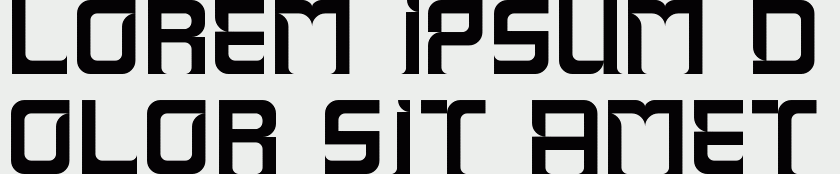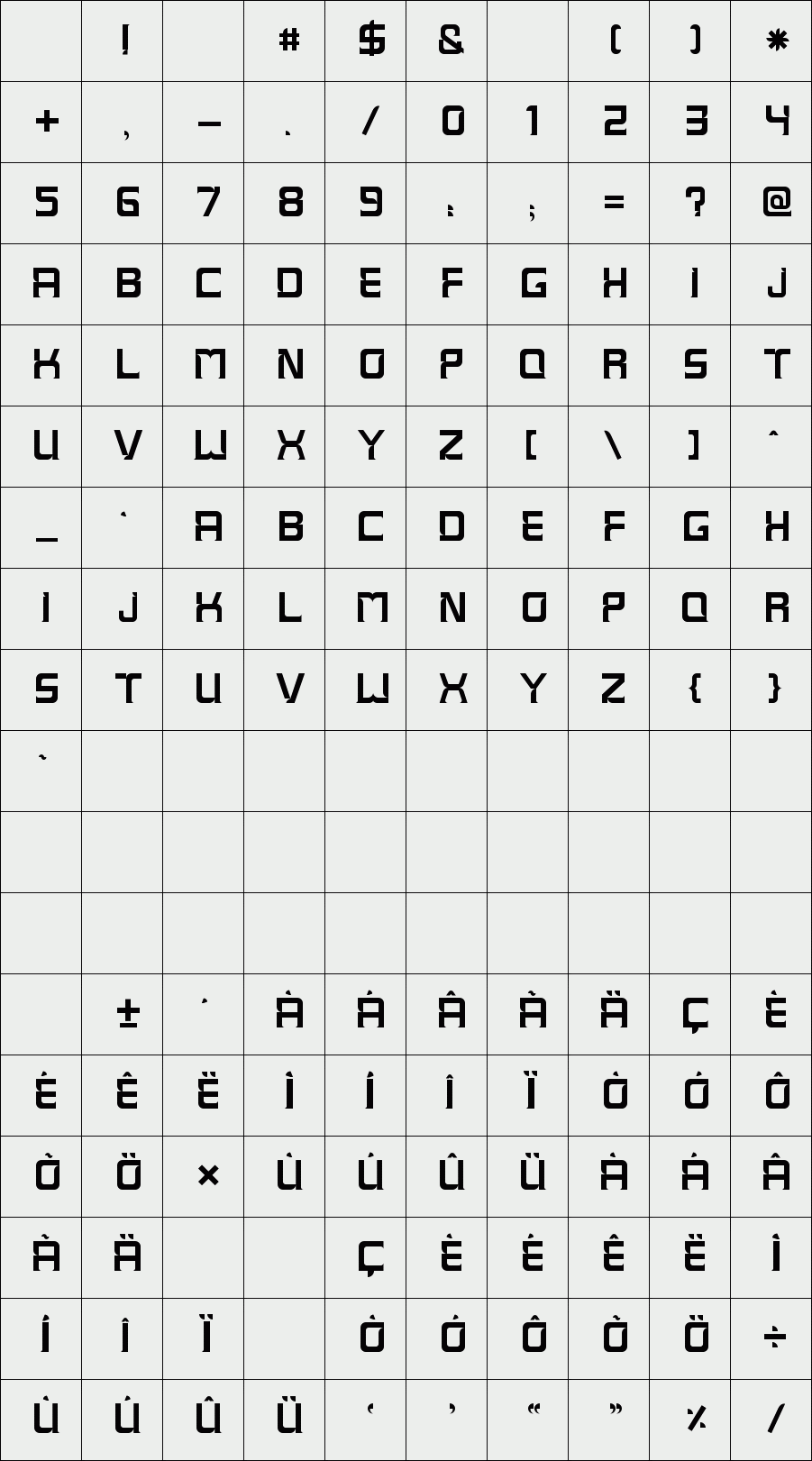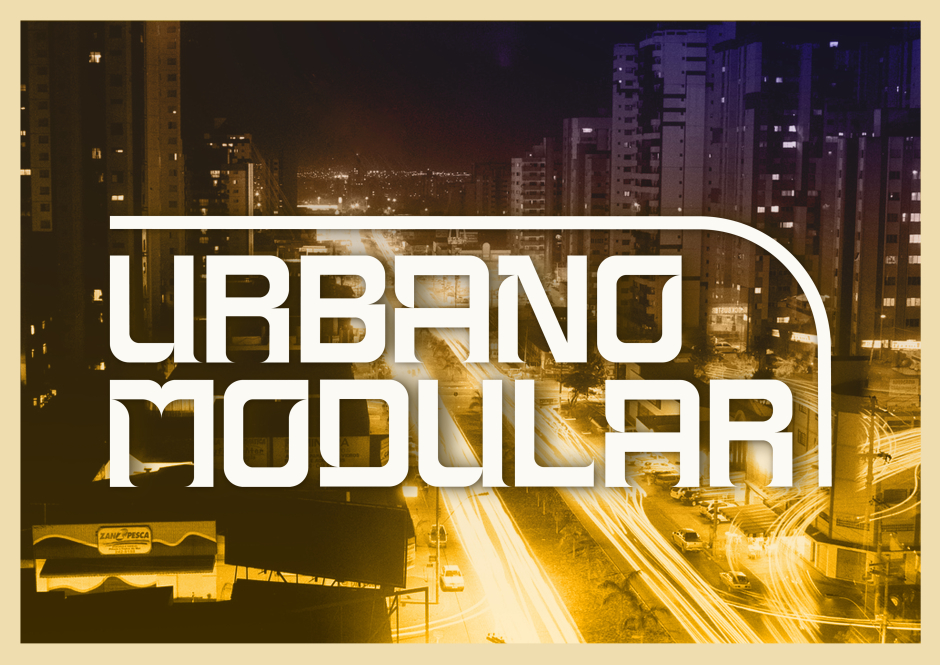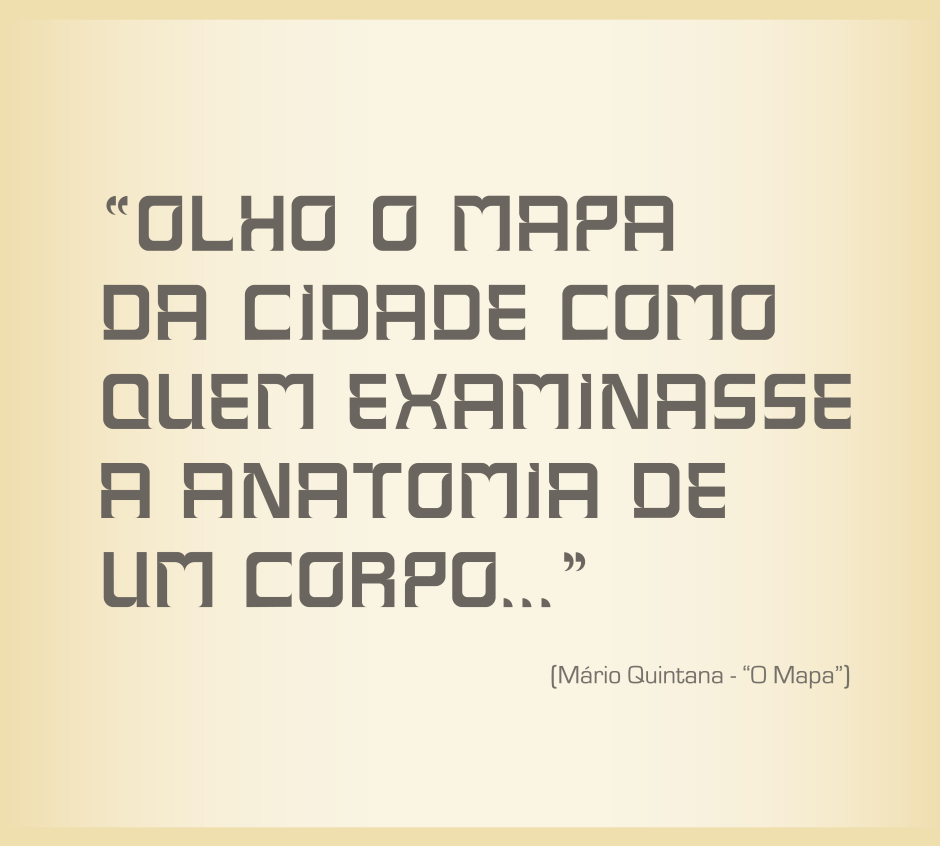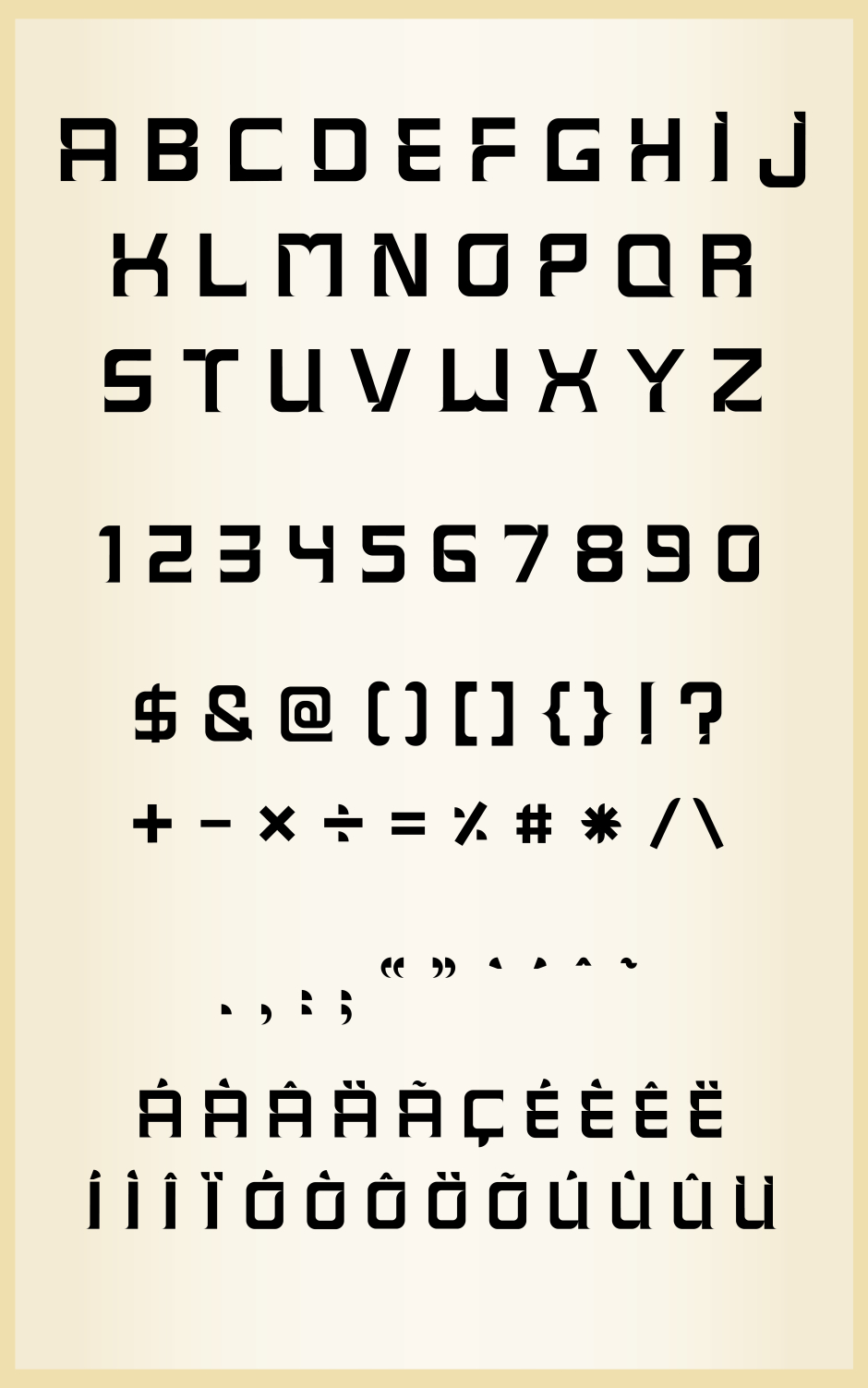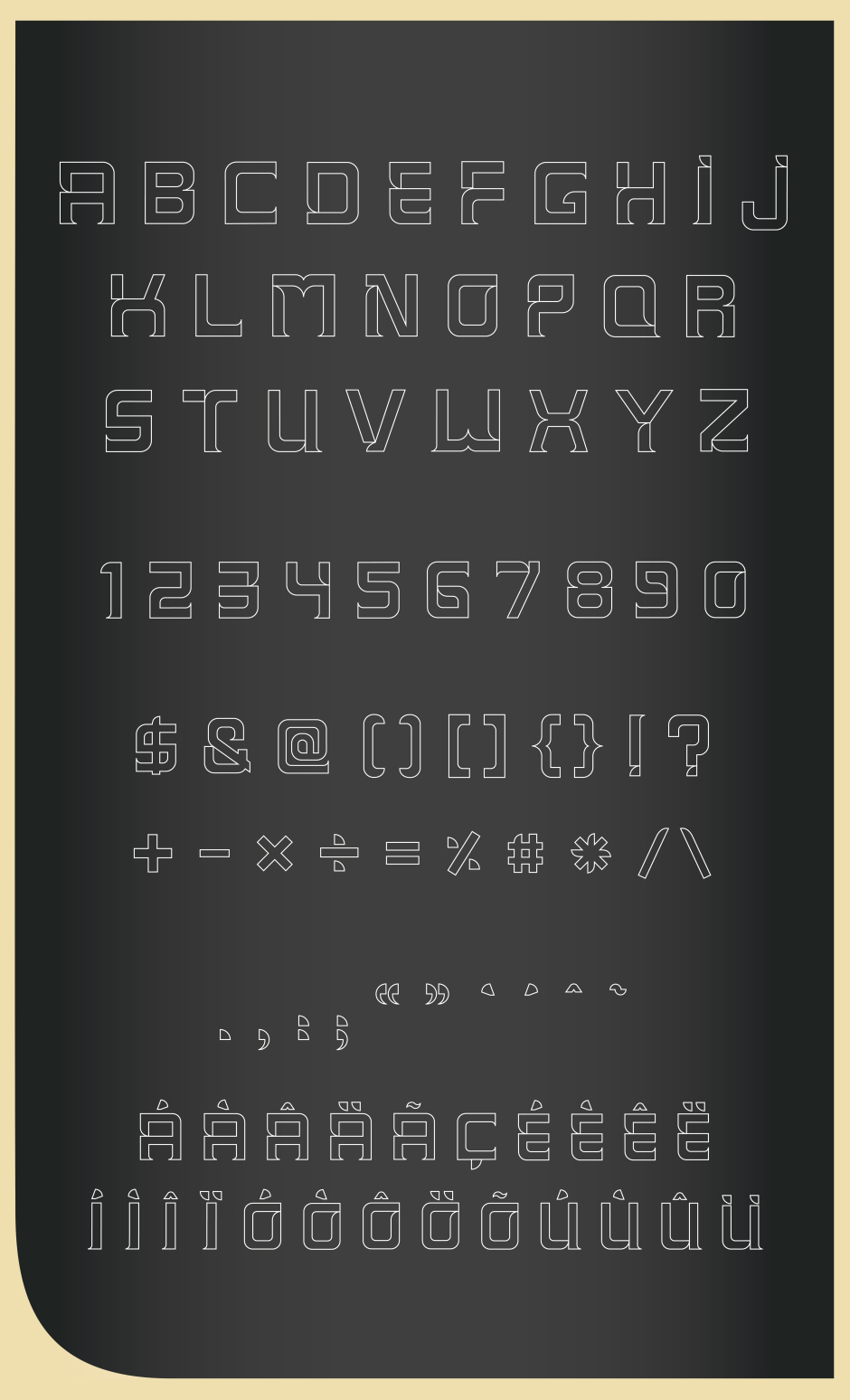
Urbano Modular
Urbano Modular is a modular display type inspired by the combination between straight and curved, streets and large cities.
Designer: Carollyna Ximenes